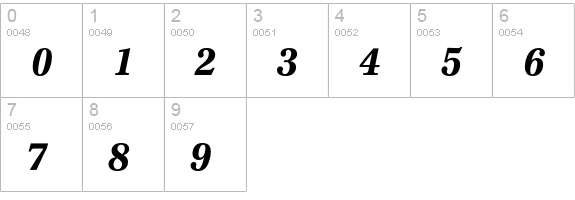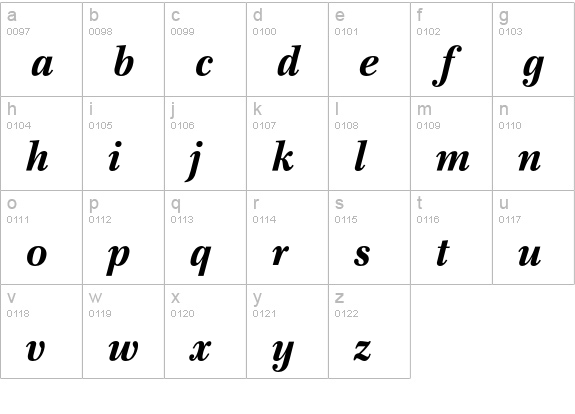
Franklin Antiqua BQ Medium Italic Font Details
Franklin Antiqua BQ Medium Italic is a balanced, medium-weight, italic variant in the Franklin typeface family \xE2\x80\x94 well suited to sub-headlines, navigation, and balanced editorial work.
Franklin Antiqua BQ Medium Italic is a timeless and elegant font that exudes sophistication and charm. Its medium weight and italic styling add a touch of flair to any design project, making it perfect for titles, headings, and emphasis. The graceful curves and sharp lines of Franklin Antiqua BQ Medium Italic create a harmonious balance that captures attention and conveys a sense of refinement. This versatile font is ideal for a wide range of applications, from editorial design to branding and packaging. Whether used in print or digital media, Franklin Antiqua BQ Medium Italic lends a sense of authority and classic beauty to any project. Best of all, Franklin Antiqua BQ Medium Italic is available for free download at FontsMarket.com. Now you can easily access this exquisite font and elevate your designs with its timeless appeal. Don't miss out on the opportunity to enhance your work with the elegance and sophistication of Franklin Antiqua BQ Medium Italic - download it today and let your creativity shine.